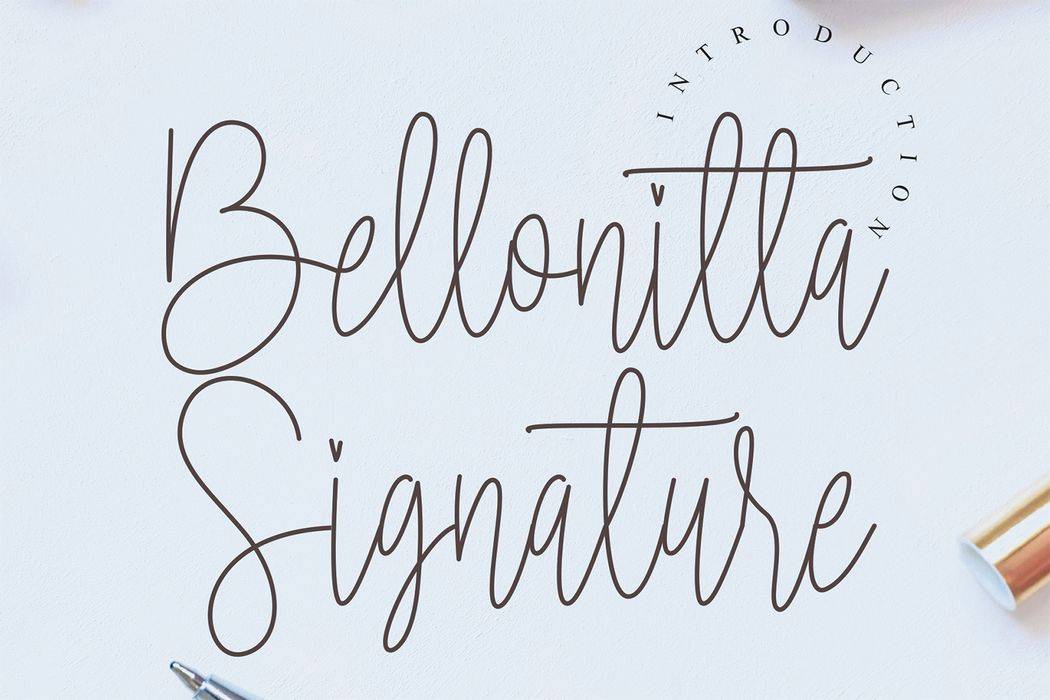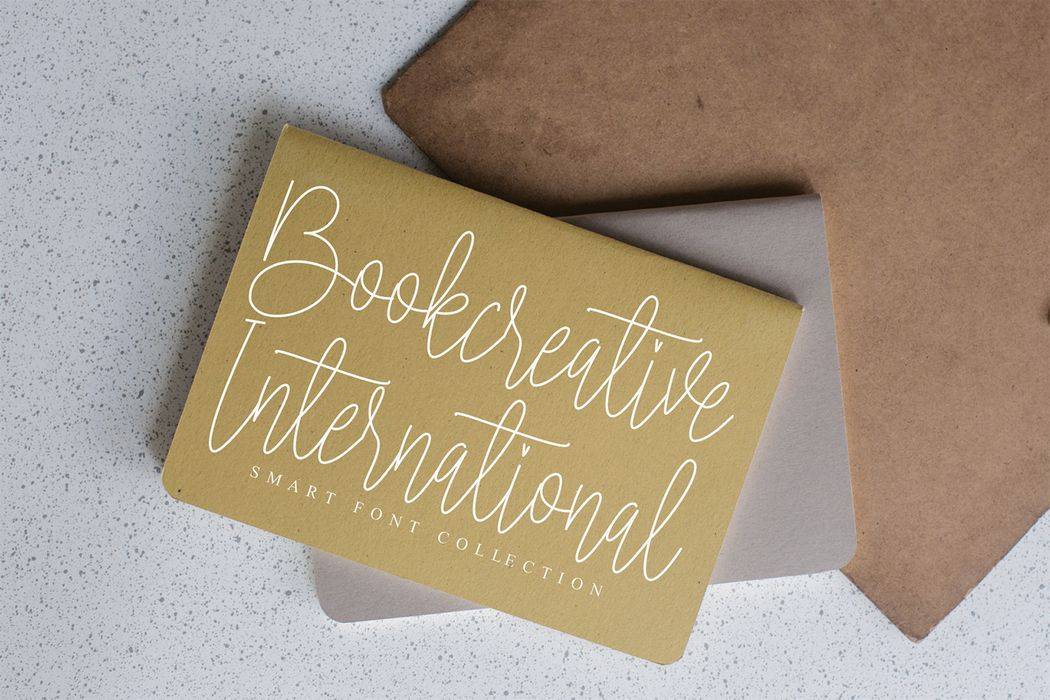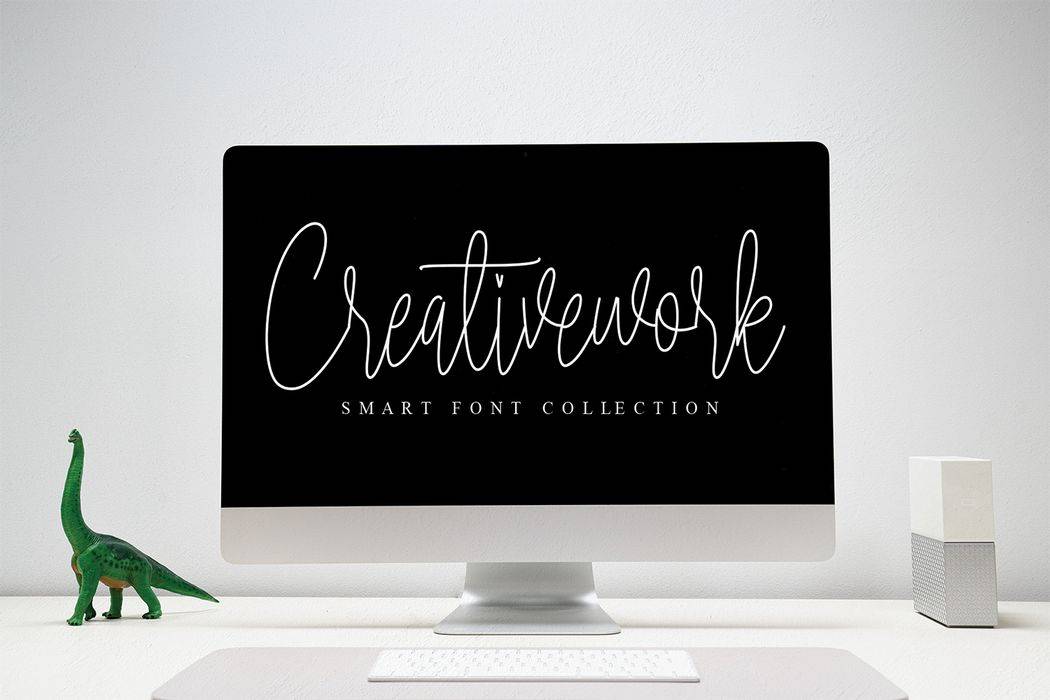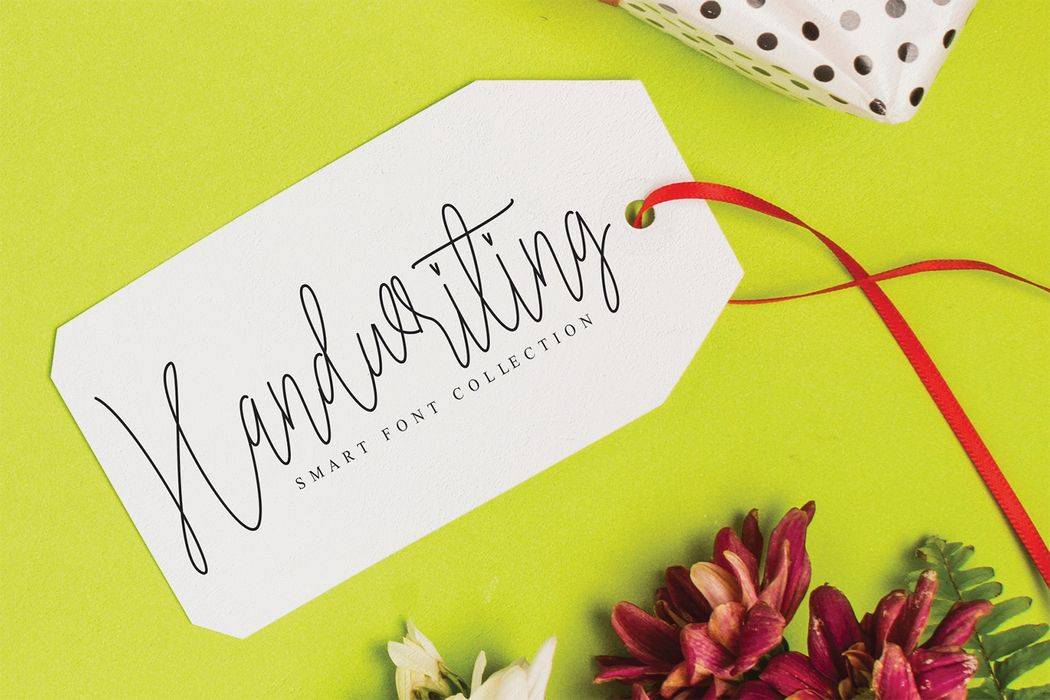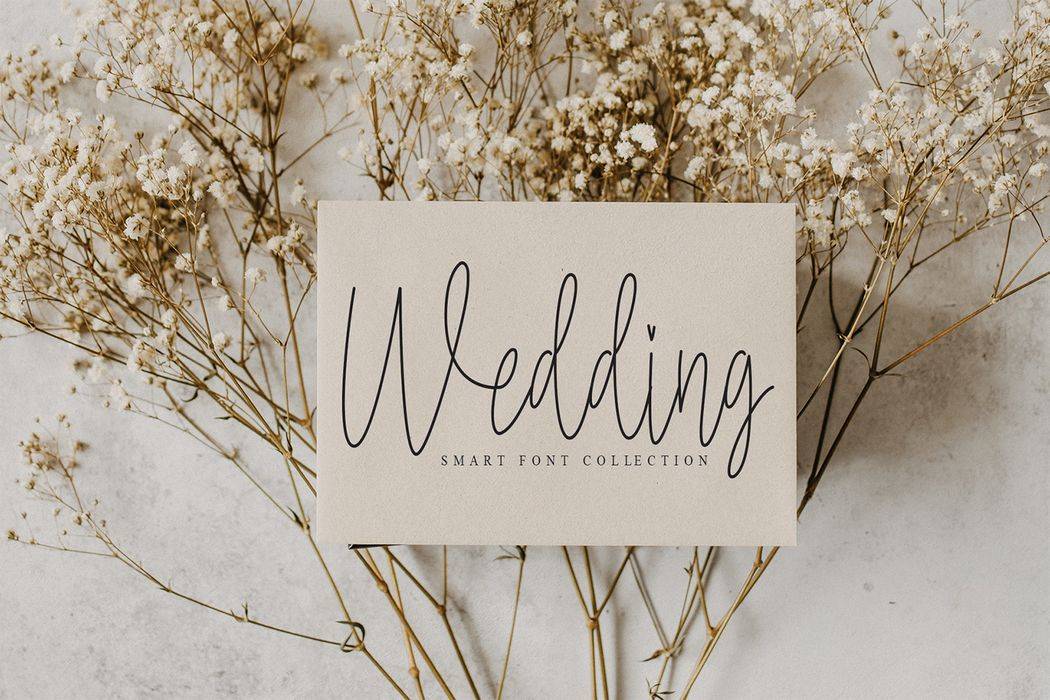
Bellonitta is a delicate, handwritten script font featuring tall, slender letterforms with thin strokes that create an airy and elegant feel. Its flowing, casual style evokes a personal signature, making it perfect for branding, invitations, and stylish headlines that seek a charming and sophisticated touch. This font works beautifully in projects aiming for a modern, graceful, and approachable aesthetic.
Bellonitta Font
About Bellonitta Font